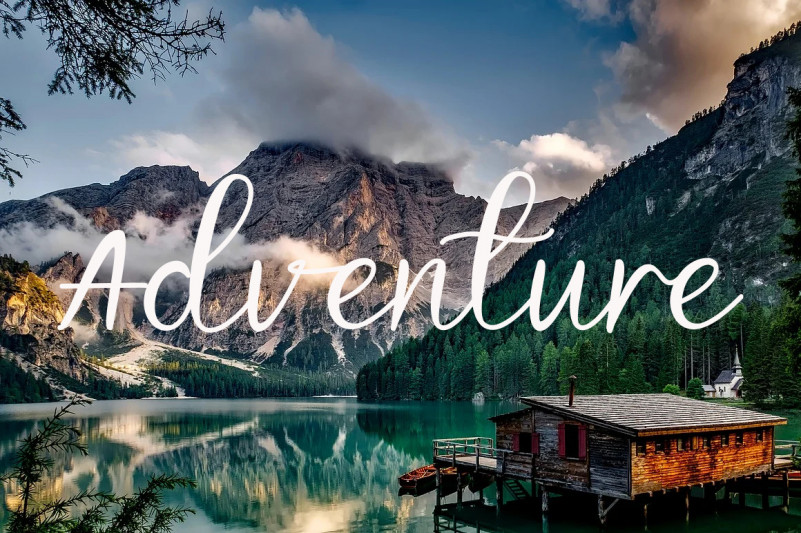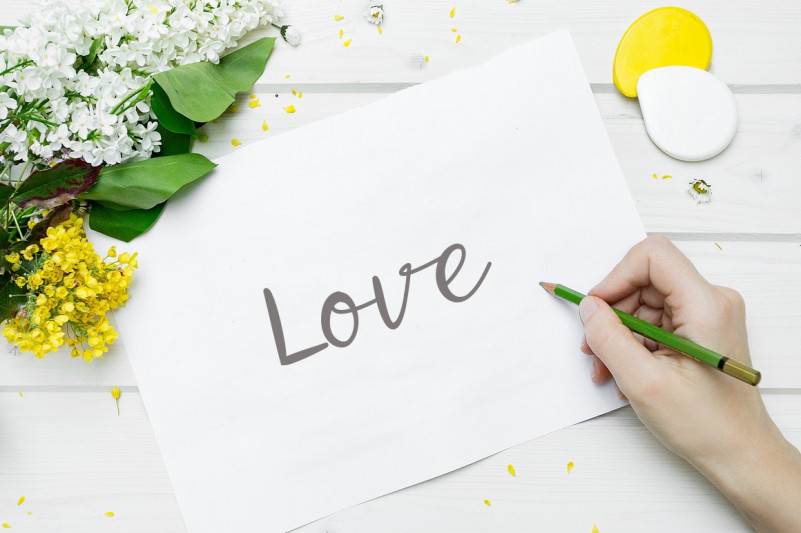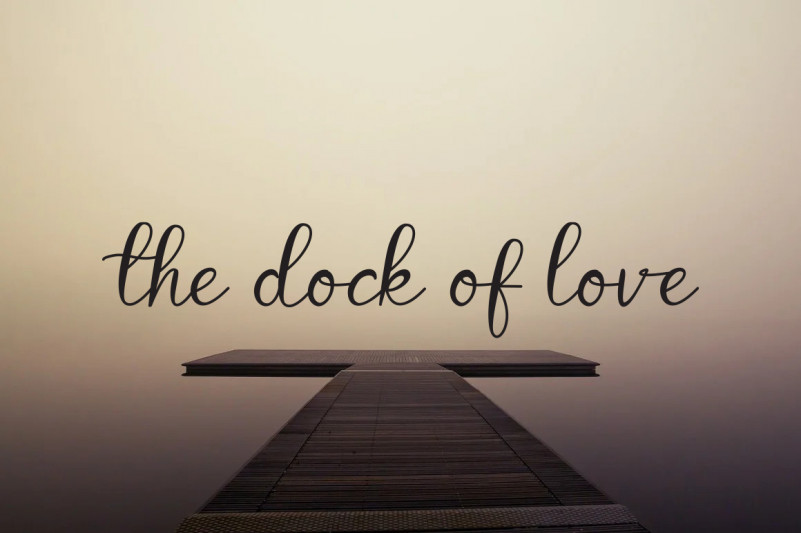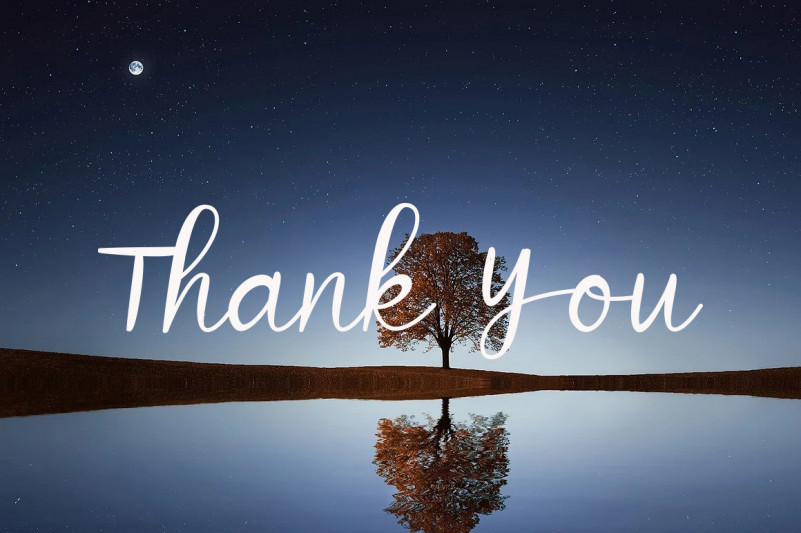
Sidney Script Font
This is a dainty, thin and cursive handwritten font. This gentle font will look gorgeous on a variety of design ideas. It will add a joyful and romantic touch to each of your projects!